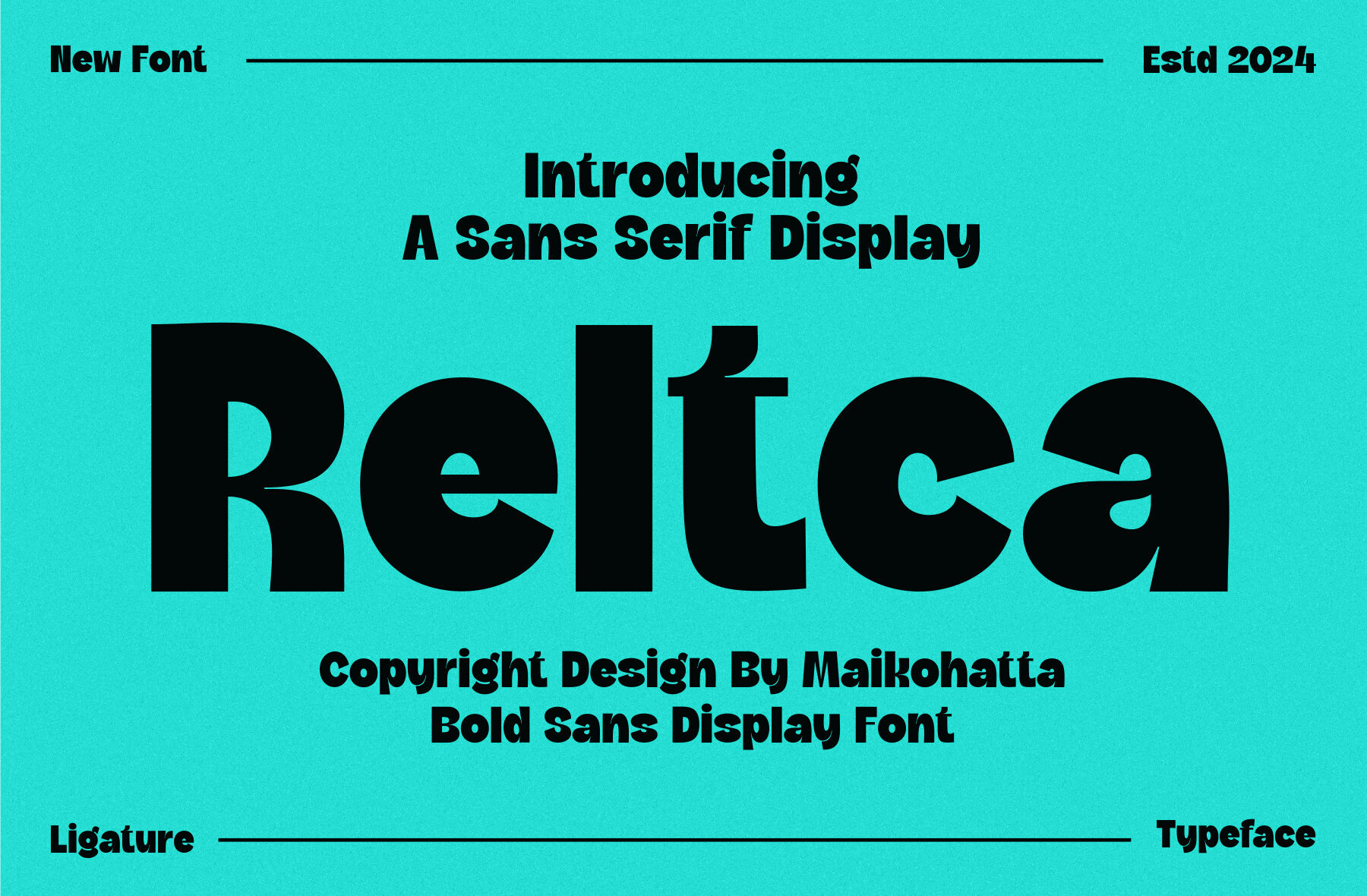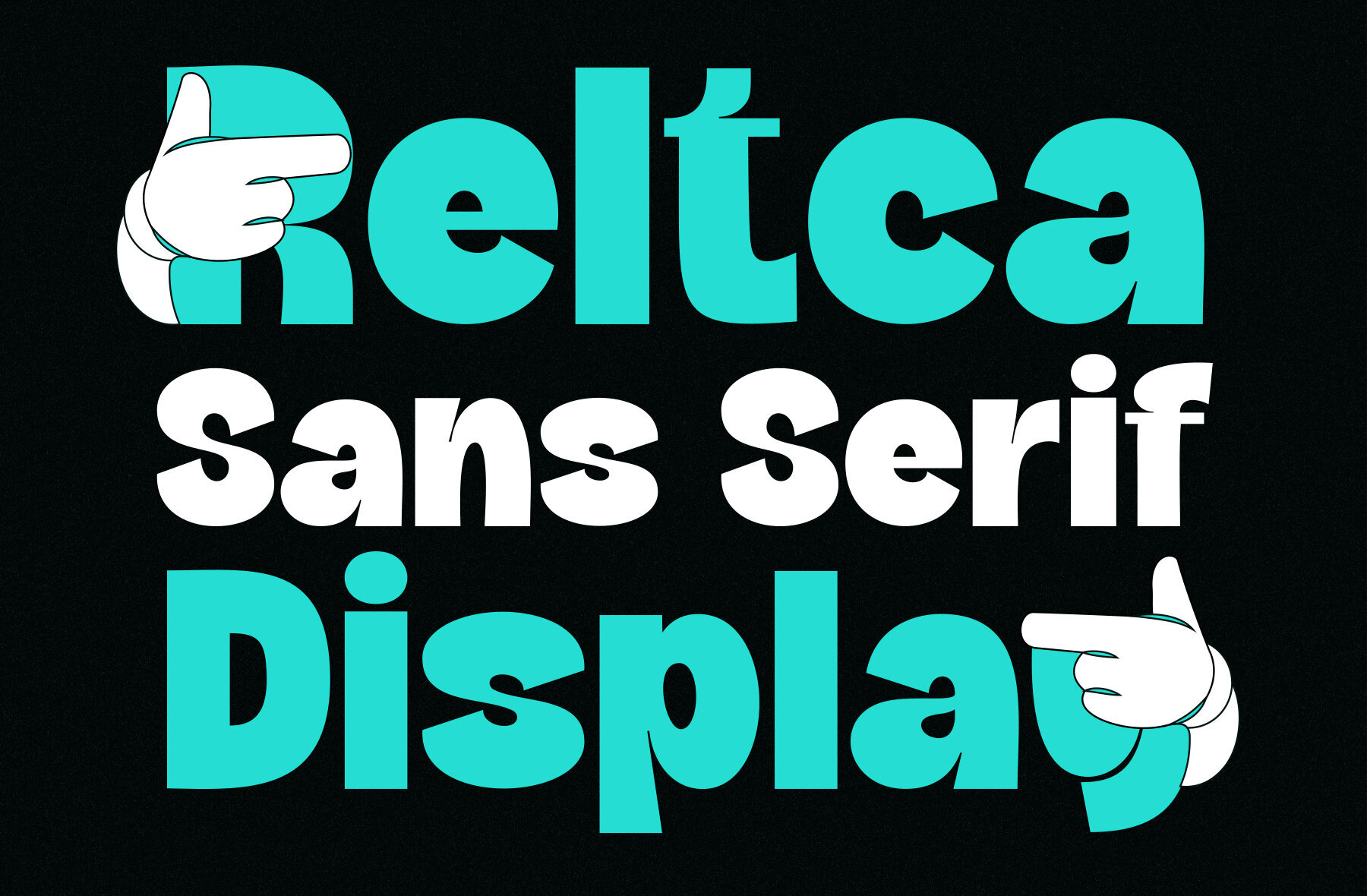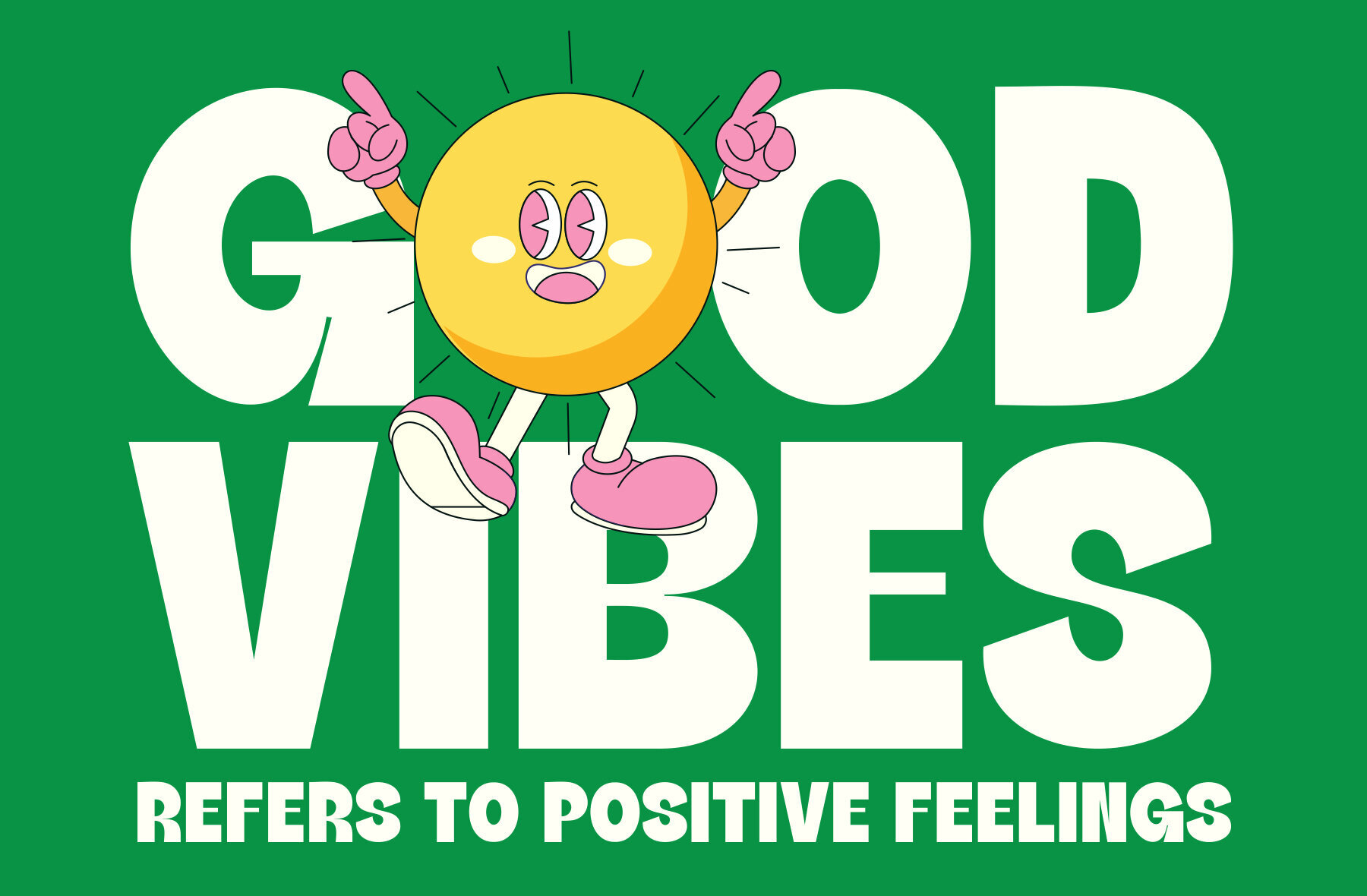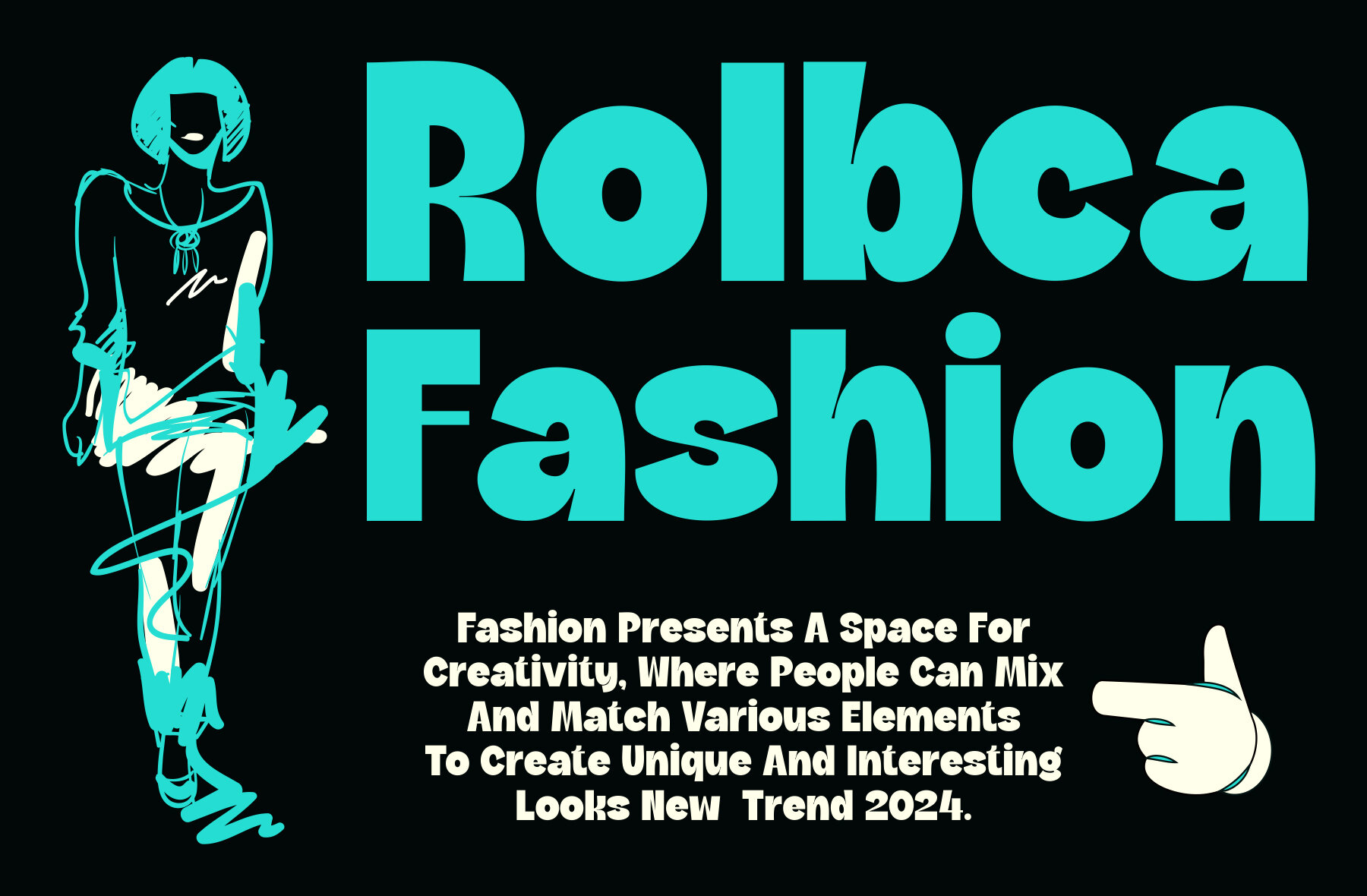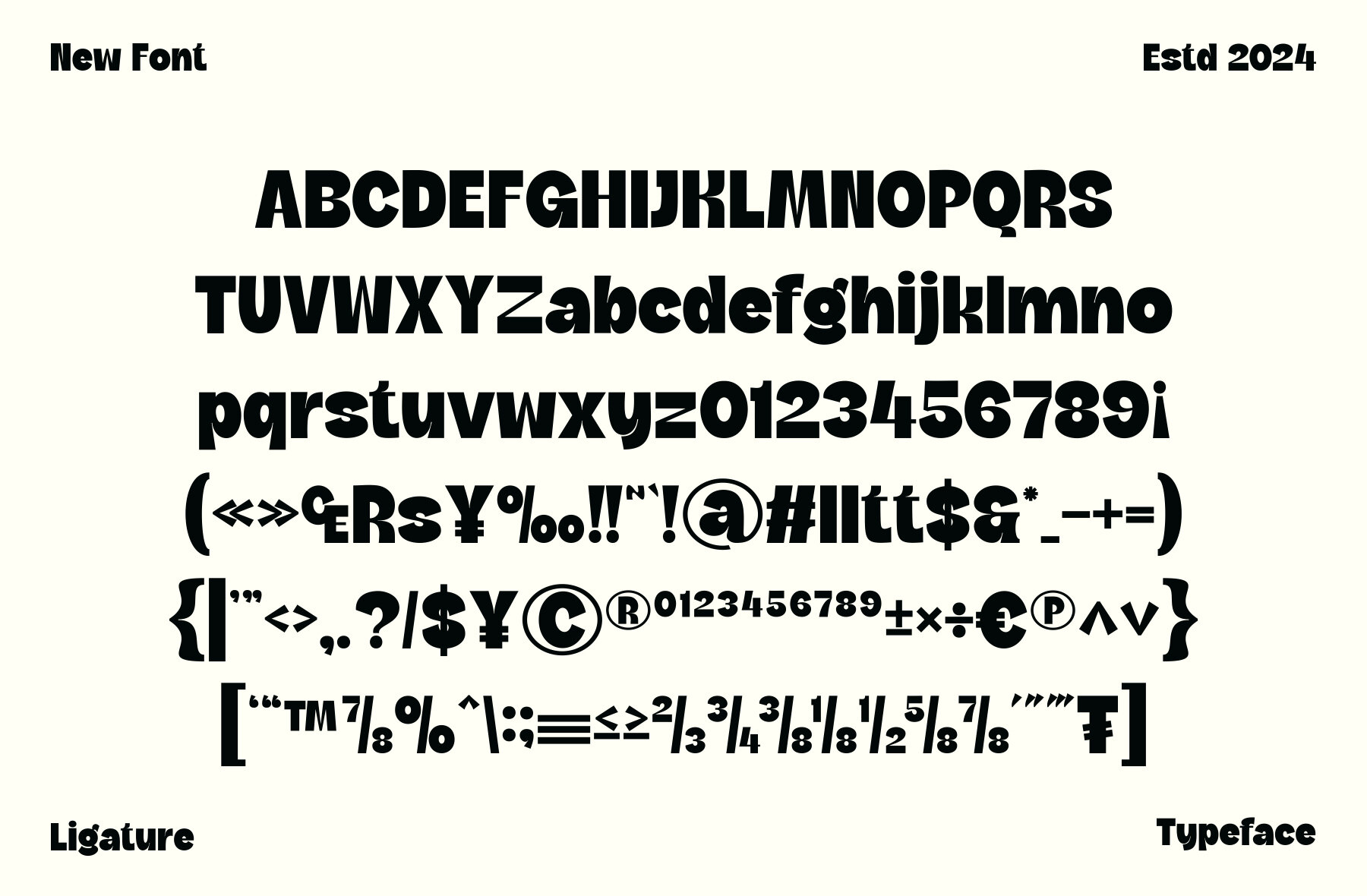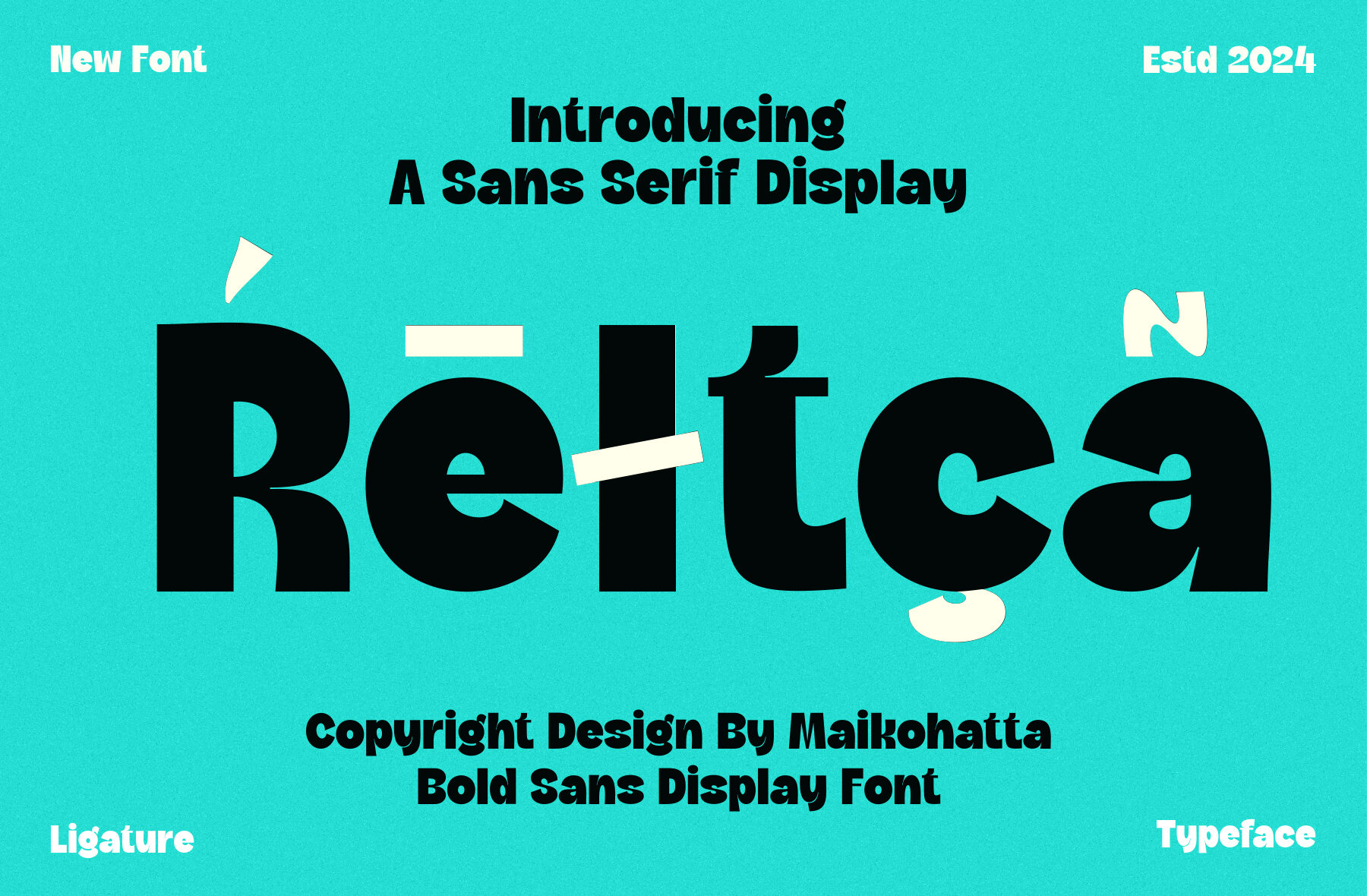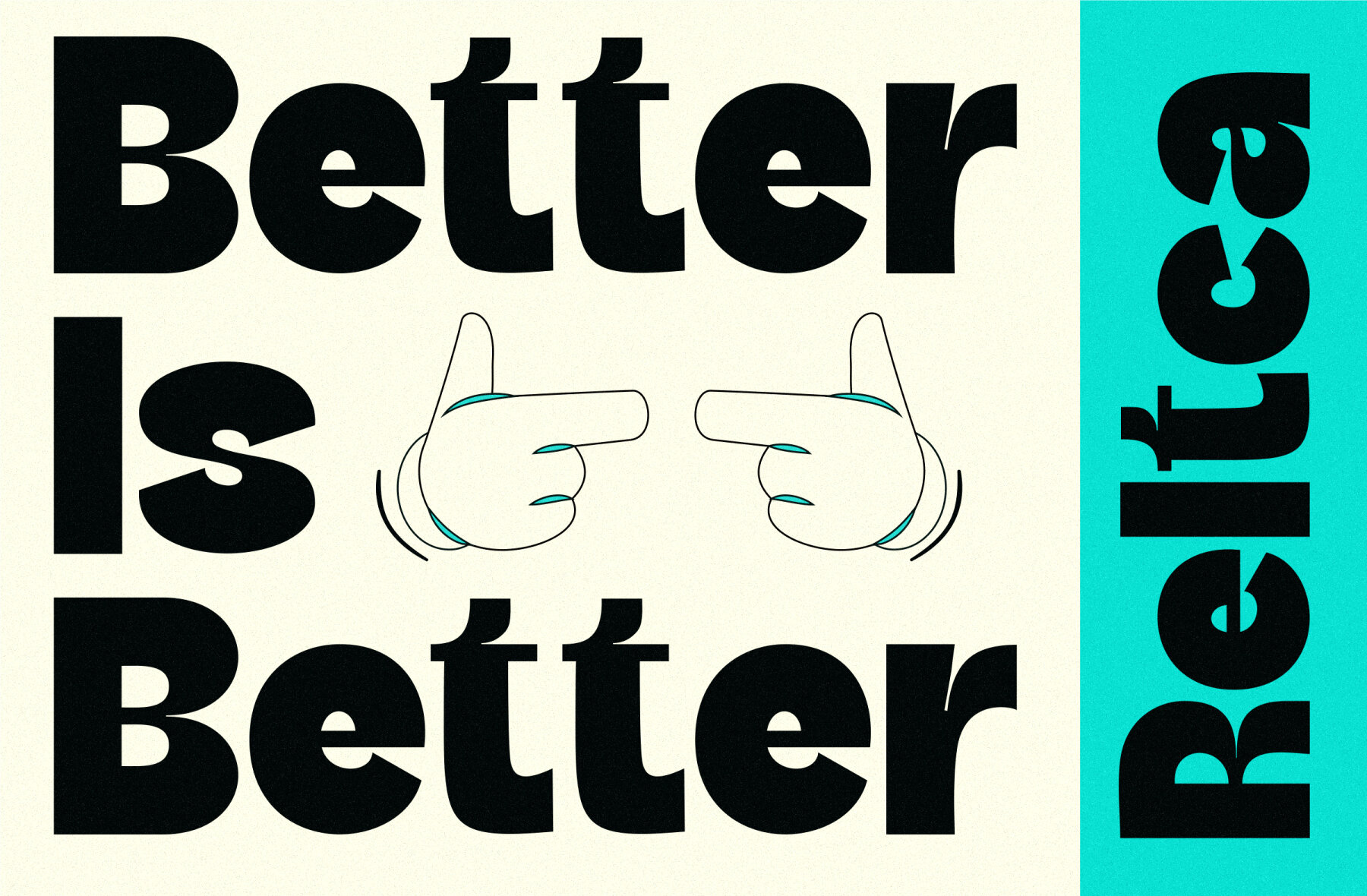
Reltca Font
Reltca Regular
Reltca is a versatile sans-serif display font, perfect for a wide range of design applications. It offers a clean and professional aesthetic that suits contemporary styles, making it ideal for graphic design and modern typography projects.
This font includes both uppercase and lowercase letters, providing flexibility in design choices. Additionally, it supports multiple languages, ensuring its usability across various contexts and global projects. Its simplicity and visual appeal make Reltca a reliable go-to for creating polished and modern visual content.